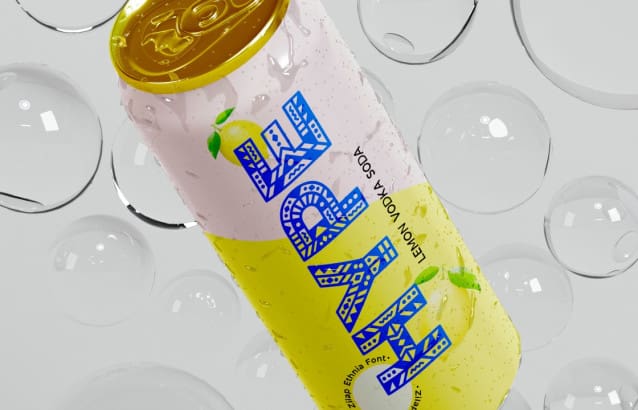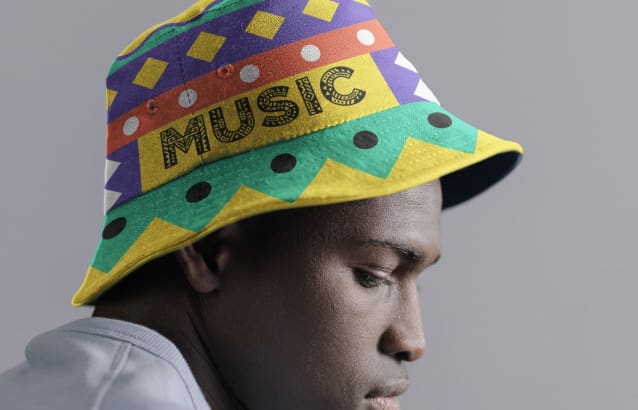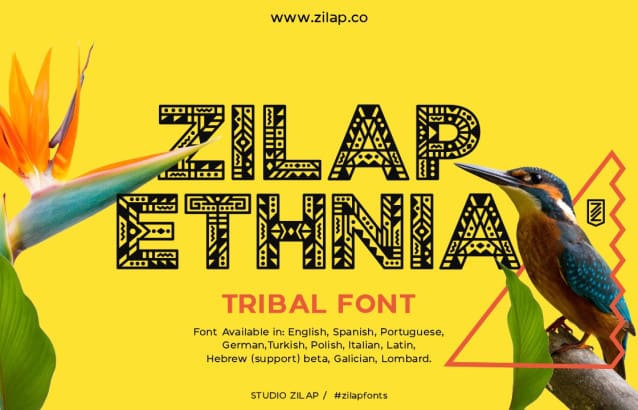
Zilap Ethnia Font
Zilap Ethnia Font, Inspired by the African Vai script invented in the 1800s by eight illiterate Vai men. Revealing secrets about the unknown evolutionary origins of handwriting and the development of writing.
The reason this text is so important, archaeologically, is because it was created “in total isolation”.
The Vai are a Manden ethnic group in the Republic of Liberia, a country on the west coast of Africa.